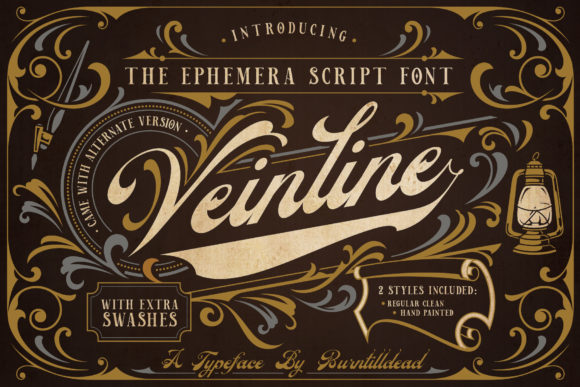
Set your design projects apart with Veinline Font, an enchanting vintage-styled handwritten font that exudes strength, confidence, and dynamism. Crafted by the talented Burntilldead, Veinline is the perfect choice for headlines and logotype projects seeking a stylish touch. This font adds a beautiful nostalgic character to your designs, evoking a sense of history and authenticity.
With Veinline Font, you have the power to transform your designs into captivating masterpieces brimming with vintage charm. Its bold and confident strokes demand attention, ensuring your message is seen and remembered. Whether crafting logos, headers, posters, invitations, or social media graphics, Veinline elevates every project with its timeless elegance and effortless sophistication.
Get lost in the intricate details and flowing curves of Veinline Font, each letter a work of art designed to enhance your designs and leave a lasting impression. Its vintage aesthetic evokes a sense of nostalgia, transporting you back to an era of timeless design. Whether your project demands a classic, traditional feel or a modern twist with a nod to the past, Veinline seamlessly blends the old and the new.
Unlock your creativity and let Veinline Font ignite your imagination. Its versatility knows no bounds, allowing you to explore a wide range of design possibilities. From bold and eye-catching headlines to delicate and elegant subtext, Veinline effortlessly adapts to meet your creative vision. Dare to be bold, experiment with different design elements, and watch as Veinline Font transforms your projects into stunning visual masterpieces.